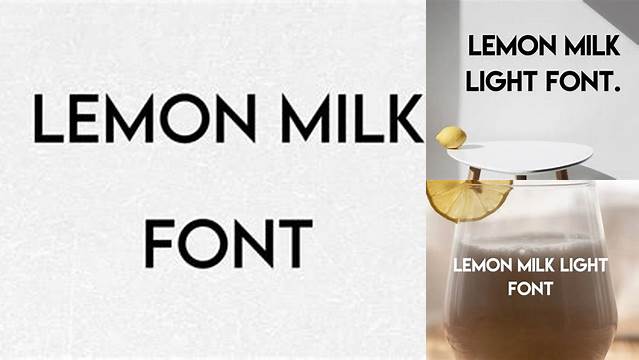
Lemon Milk Light Font: Free Download Guide
When discussing lemon milk light regular font, we're diving into the world of typography where design meets functionality. This font, known for its clean lines and modern aesthetic, has become a favorite among designers and creatives. Its legibility and versatility make it suitable for a wide range of applications, from branding to web design. The lemon milk light regular font stands out due to its balanced appearance, ensuring it's both visually appealing and easy to read. This balance is achieved through careful attention to detail in its kerning, spacing, and overall structure, making it a reliable choice for projects aiming for a contemporary feel. Moreover, its availability under certain licenses often allows for free use, making it an accessible option for many users. Understanding its characteristics and proper applications can significantly enhance the visual impact of any project. Whether you're working on a website, a logo, or a print design, the lemon milk light regular font offers a sophisticated and modern touch.
Its appeal lies in its simplicity; the font doesn't overwhelm the viewer but rather complements the overall design. This makes it an excellent choice for body text as well as headings, providing a cohesive look throughout your project. The subtle lightness of the font adds an airy feel, preventing designs from feeling too heavy or cluttered. In the digital realm, its clean rendering ensures it displays well on various screen sizes and resolutions, a crucial factor in today's mobile-first world. In print, its sharp lines translate beautifully, maintaining clarity and readability even at smaller sizes. For designers aiming to create a minimalist or Scandinavian-inspired design, the lemon milk light regular font is an ideal choice, embodying the principles of simplicity and functionality.
Also, the story behind the font's creation can add another layer of appreciation. Knowing the designer's inspiration and the craftsmanship involved can deepen your understanding of its value. Many designers meticulously craft each glyph to ensure uniformity and aesthetic appeal. This dedication to detail is what sets high-quality fonts apart from generic alternatives. The lemon milk light regular font often comes with a suite of related styles, such as bold, italic, and condensed versions, offering designers a complete toolkit for their typographic needs. These variations allow for creative flexibility while maintaining a consistent visual identity across different design elements. Exploring these different styles can unlock new possibilities and help you create a more dynamic and engaging design.
Choosing the right font can make or break a design. With lemon milk light regular font, you're opting for readability and versatility. This font is particularly well-suited for projects that require a modern and clean aesthetic. Its light weight ensures that text appears airy and uncluttered, making it perfect for minimalist designs. Furthermore, its geometric construction provides a sense of stability and balance, making it a reliable choice for both headings and body text. In terms of versatility, the lemon milk light regular font works well in both digital and print mediums, ensuring a consistent look across different platforms. Whether you're designing a website, creating marketing materials, or crafting a presentation, this font offers a professional and contemporary touch. It’s no surprise that many designers turn to lemon milk light regular font when they need a typeface that is both elegant and functional. Its clarity and simplicity help convey messages effectively, ensuring that the focus remains on the content.
One of the main reasons designers adore this font is its adaptability. It pairs well with a wide variety of other fonts, allowing for creative freedom in typographic choices. You can easily combine it with bolder fonts for contrast or use it alongside more traditional fonts for a modern twist. This flexibility makes it a valuable asset in any designer's toolkit. Moreover, the lemon milk light regular font often includes a comprehensive set of characters, including numerals, punctuation, and accented letters, supporting multiple languages. This broad compatibility ensures that your designs can reach a global audience without compromising on visual quality. Its open and friendly appearance also makes it an excellent choice for projects aimed at a wide demographic, from young adults to older audiences.
In conclusion, the lemon milk light regular font is a fantastic choice for designers seeking a modern, clean, and versatile typeface. Its legibility and aesthetic appeal make it suitable for a wide range of applications, from web design to print materials. By understanding its characteristics, knowing where to find free downloads, and following best practices for installation and usage, you can effectively incorporate this font into your design workflow. Remember to always check the licensing terms and prioritize security when downloading fonts from the internet. With the right approach, the lemon milk light regular font can elevate your designs and help you create visually stunning and professional-looking projects.